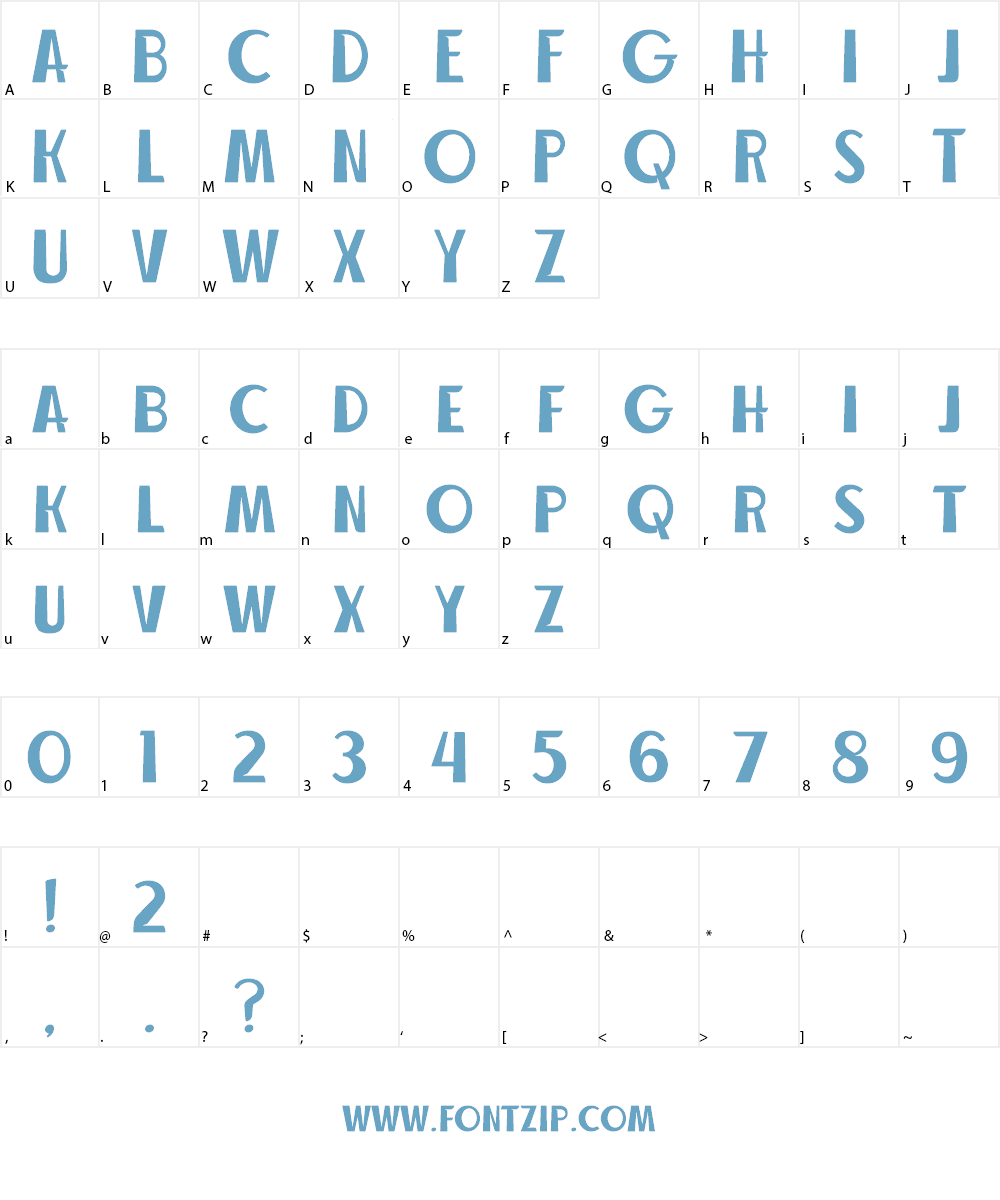
Ferawati is the name of a lady, a mother of a son, that was persecuted by a bunch of males counter-governmental rally in Jakarta. She bravely spoke for the truth among these uncontrolled men.